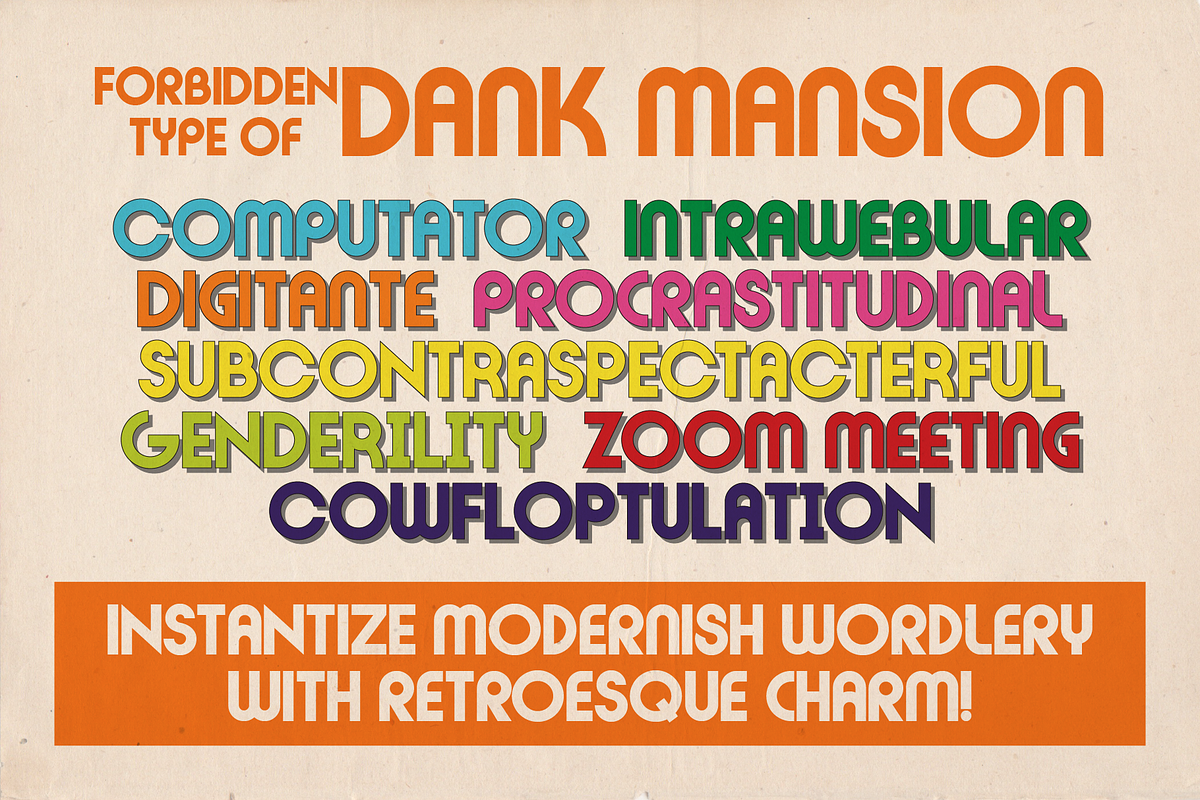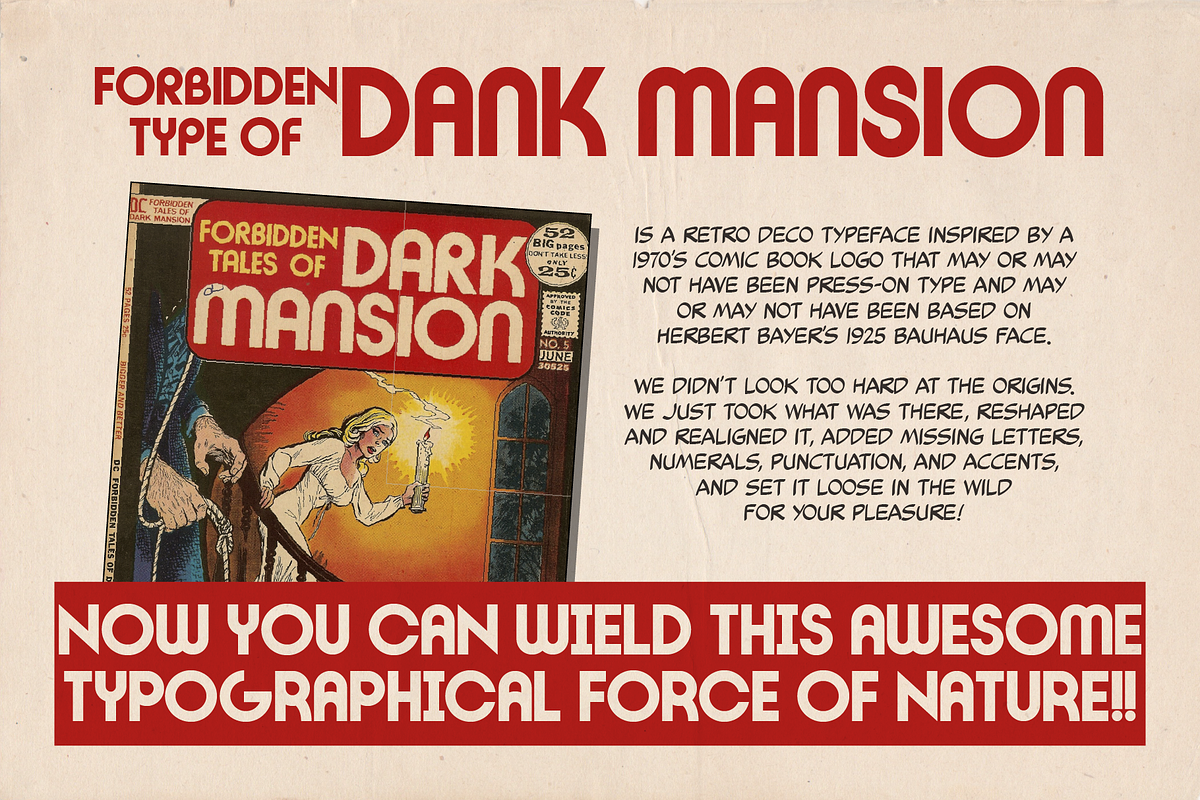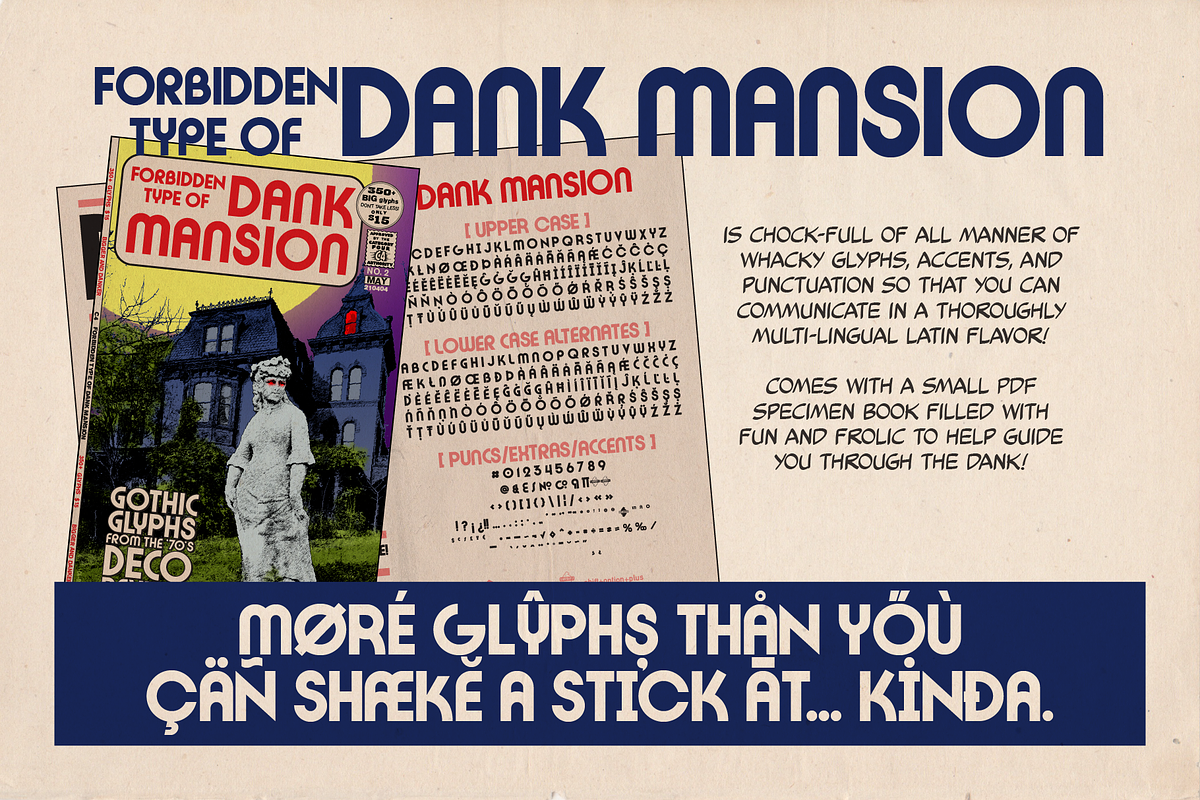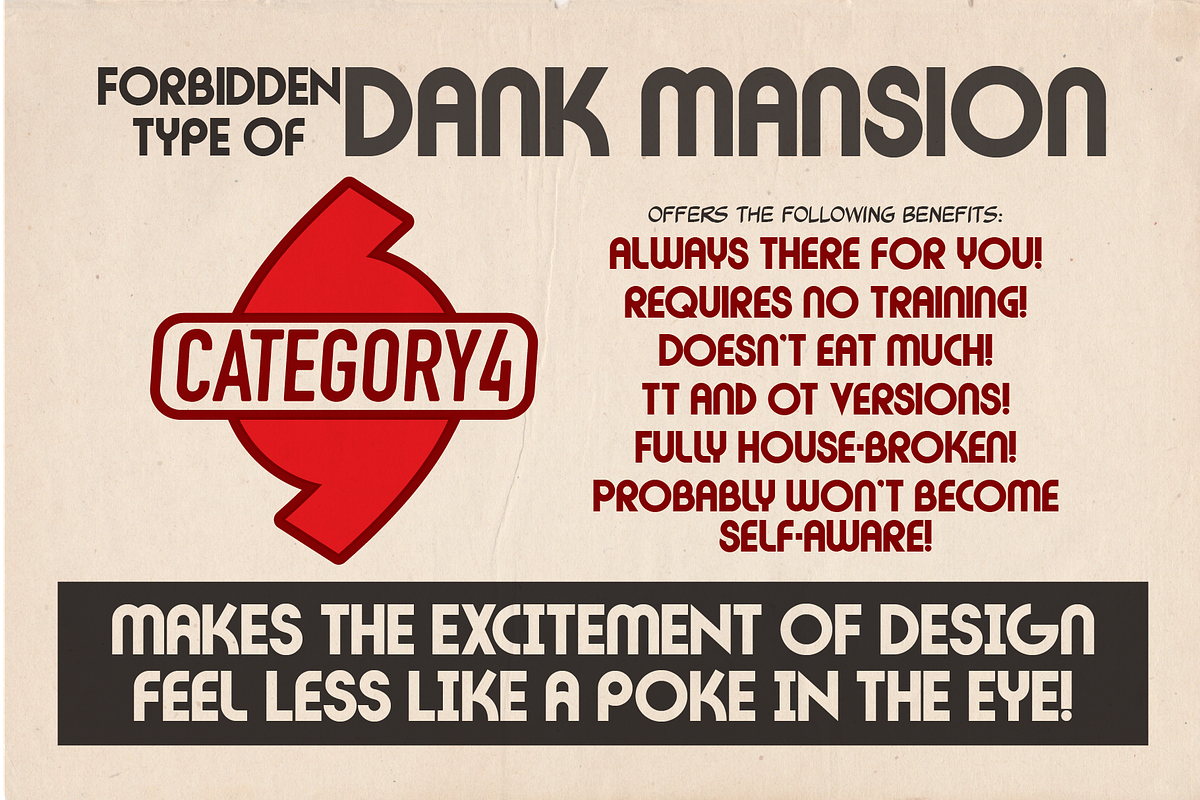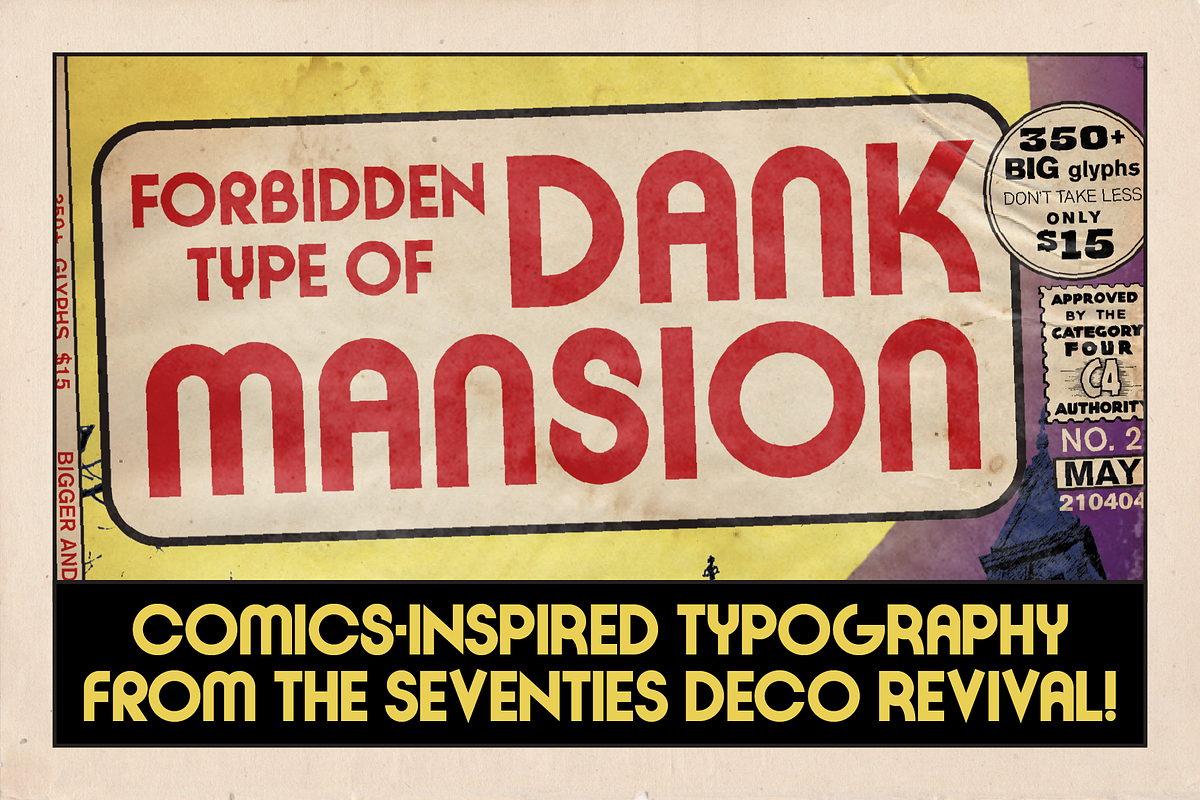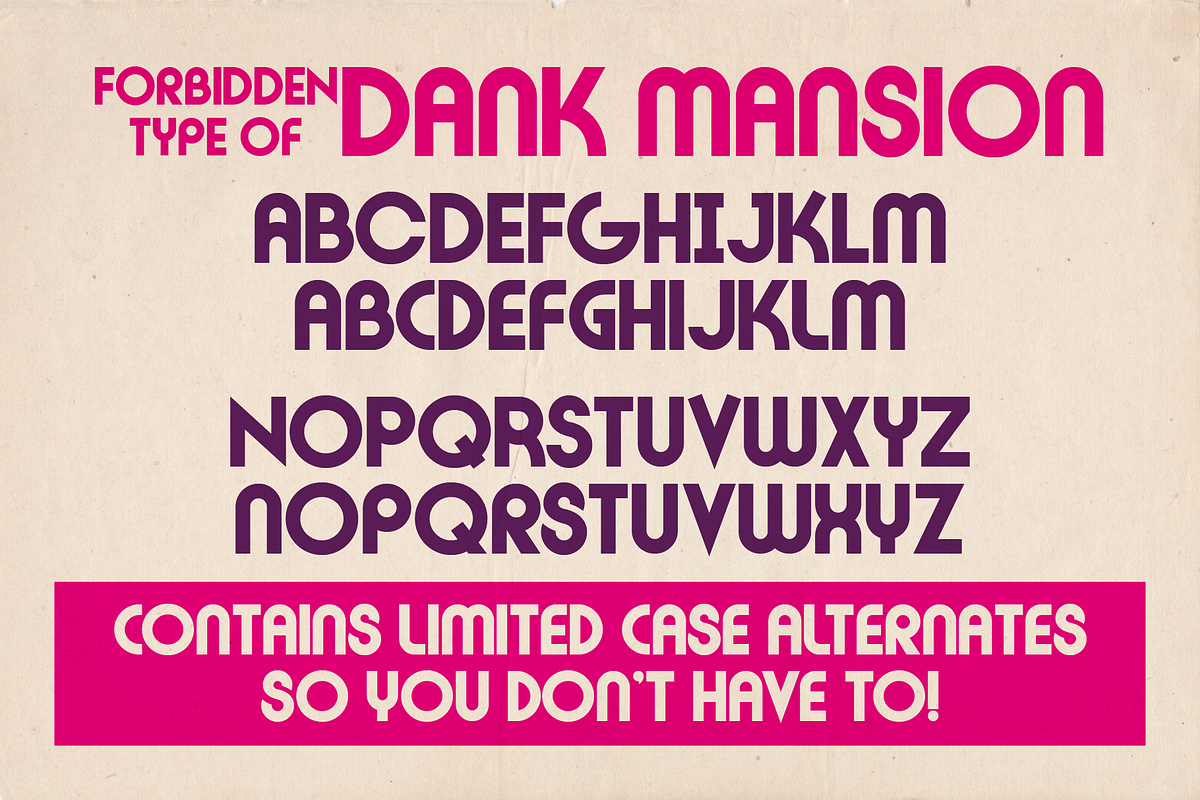
Forbidden Type of Dank Mansion
Forbidden Type of Dank Mansion is a blast from the art deco past! A long-gone age of reason and logic, a simpler time when neighborly was the thing to be! A time without stress or strife, when we were all brothers and sisters and comics were groovy, man… The 1970's!
Wait, what? Yes, the 1970's deco revival, or rather, re-revival. Ever since the Sixties, art deco lettering has made a comeback every ten years or so, and when we ran across the inspiration for this typeface, we thought we'd get in on the ground floor of the next deco revival before it got too crowded… oops… too late.
Anyway, we ran across an old comic book in our closet, hidden underneath that heavy briefcase that our buddy DB Cooper asked us to hold for him. It was a copy of Forbidden Tales of Dark Mansion, a gothic anthology book put out by National Periodicals. [You may know them as DC Comics!] Oh, the nine-year-old joy that cover brought back to us! Huddling under the covers with a flashlight late at night and trying to figure out why National thought that deco lettering was perfect for spooky comic book logos. We still really don't get it, but we do still love the letters!
They really stood out on the spinner rack back then, when most funnybooks sported bespoke, hand-lettered logos, here was this unfathomable monstrosity that looked as if someone grabbed the nearsest sheet of Letraset dry-transfer letters they could find and knocked this logo out before their coffee was finished! Variants of the same letter were on display as well, making the logo something of a Frankenstein. Perhaps that was the reason it was on a gothic horror comic? Who knows?!
Overall, the characters have a Herbert Bayer Bauhaus-y feeling, but that's about as close as they came. Regardless, we figured, "Hey, here's half the alphabet… how hard could it be to infer the rest?" Well, not very hard at all! We made a few slight fixes, added a whole bunch of punctuation, acccents, and a few European glyphs and voila… Forbidden Type of Dank Mansion! A modern re-imagining of a retro re-interpretation of a vintage modern typeface!